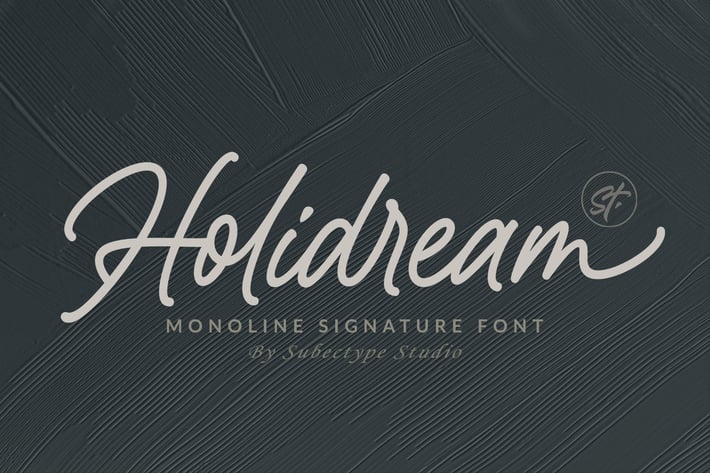
Holidream - Monoline Signature Font
Introducing the new "Holidream" font, a monoline script font. For those of you who are needing a touch of clean monoline handwritten Font,
chic and modernity for your designs, this font was created for you!
Holidream was built with beautiful alternate ending.
and It has an extensive lingual support, covering all European Latin scripts.
Ligature & Alternate